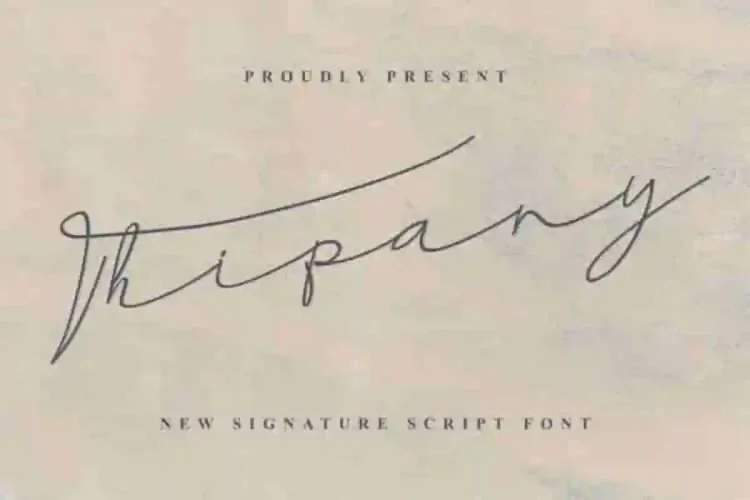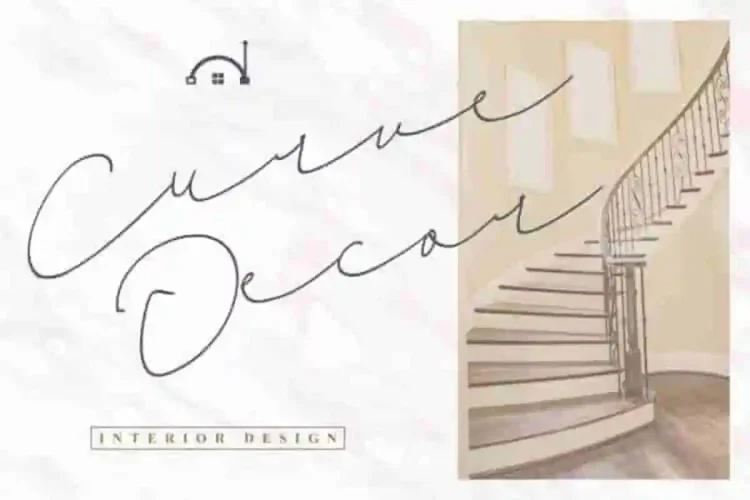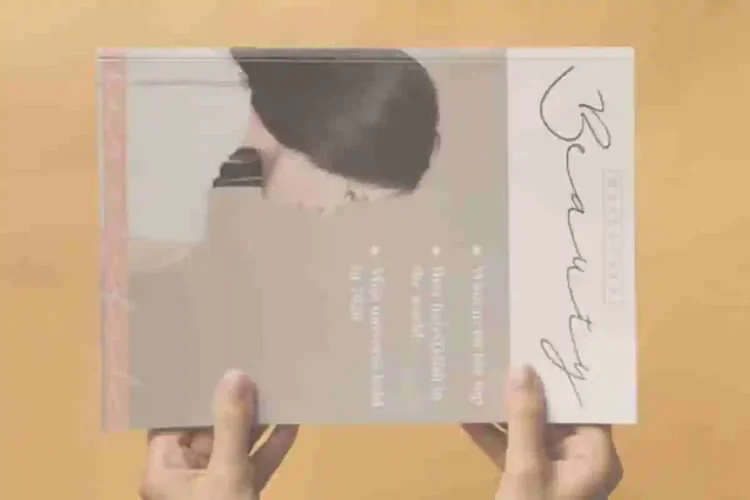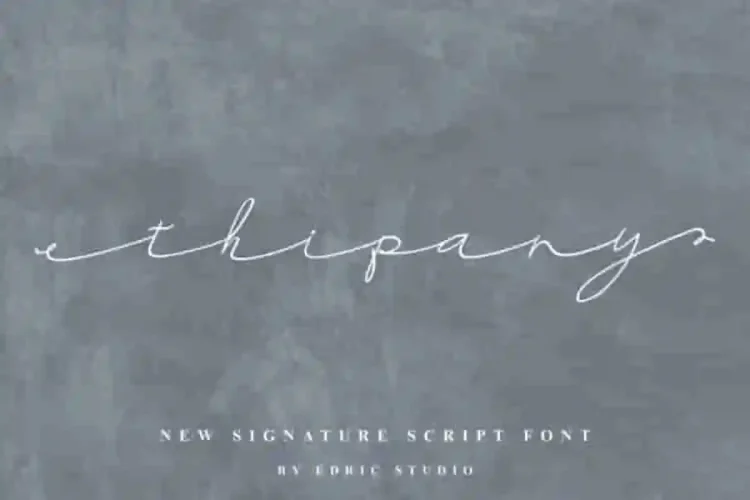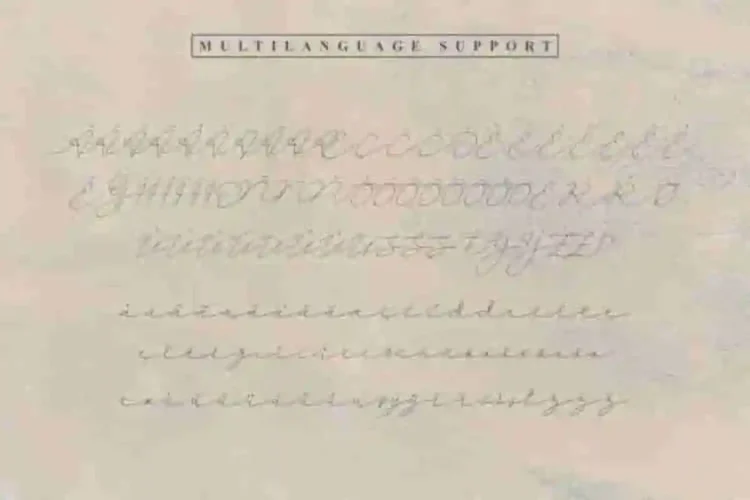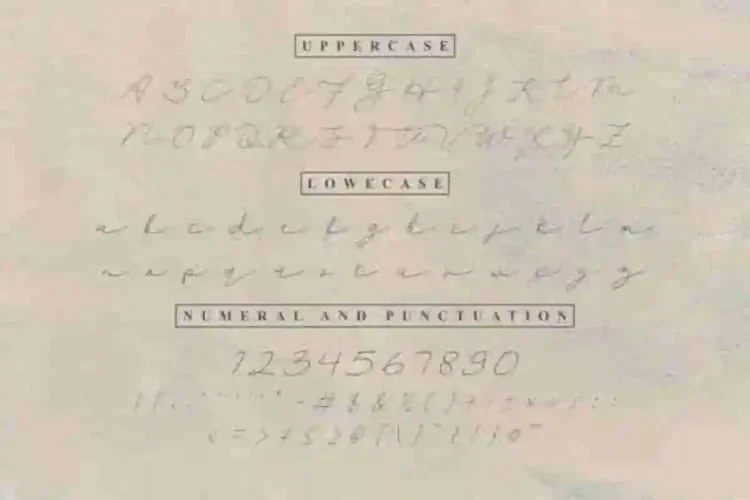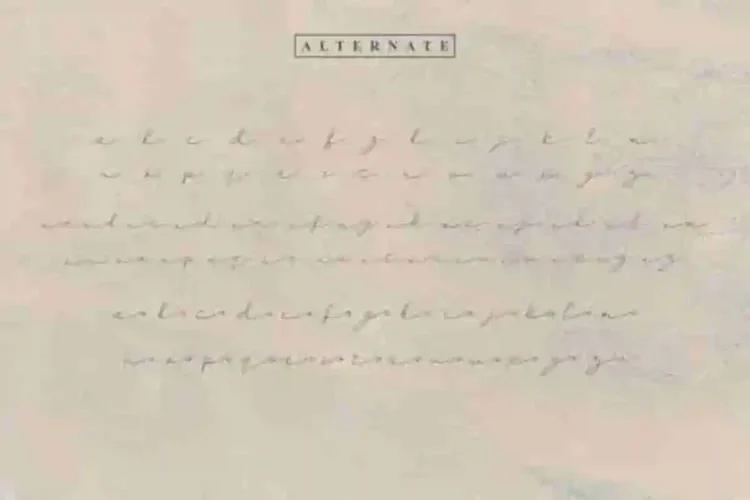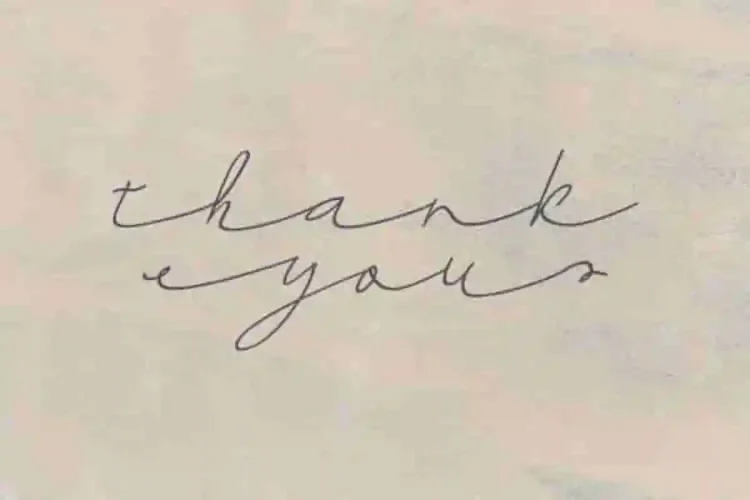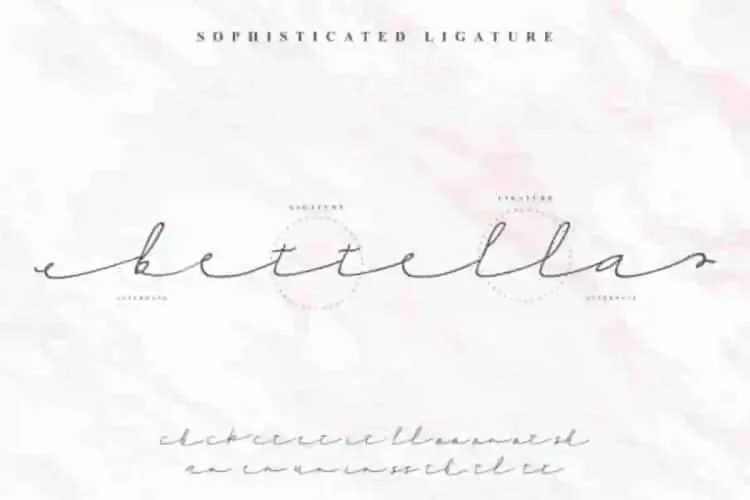
Thipany Handwritting Font
In 2020, we at Edric Studio,. Present to you! our newest font family : Thipany Signature Font
This is a signature script font. It has uniquely elegant glyhps. This handwritting font will be great for branding, logo, stationery, business card, signage, flyer, brochure etc.
Thipany Signature Font will suits many projects, the limit is only our creativity.